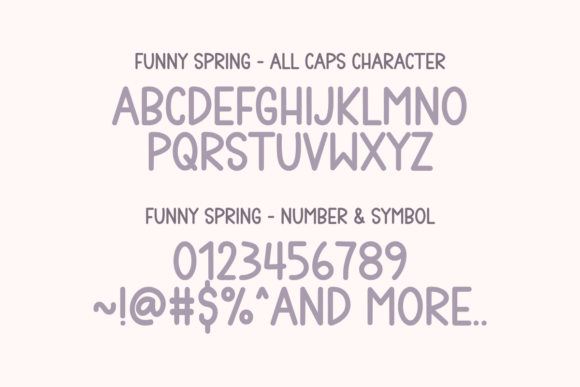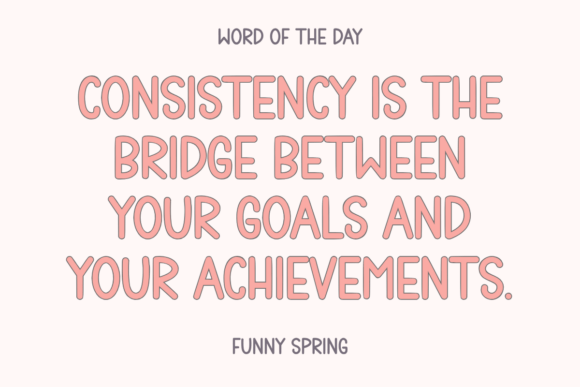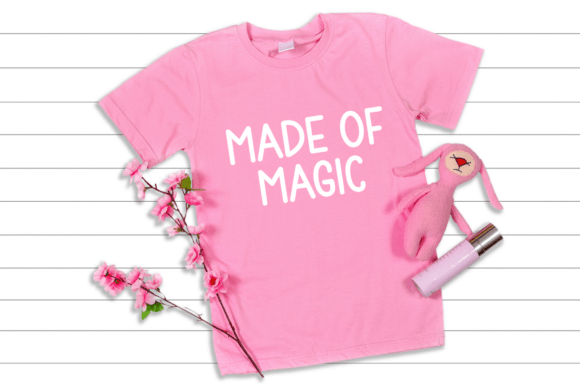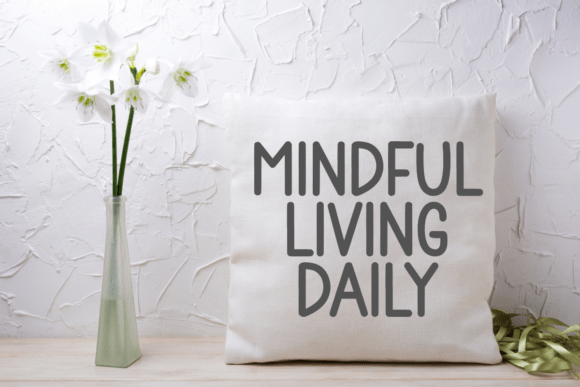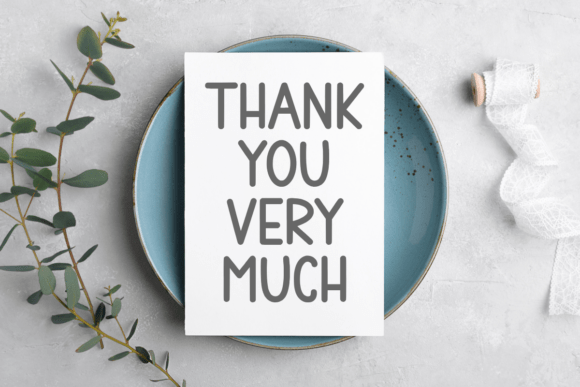
The Perfect Blend of Whimsy and Elegance: Funny Spring Font
Do you ever find yourself rummaging through your craft stash, searching for the perfect font to bring your next creative project to life? You’ve got your supplies, your imagination, and the blank canvas staring back at you, begging for inspiration. It’s moments like these that make you realize the power of the right font in elevating your art from ordinary to extraordinary.
Enter Funny Spring Font, a delicate, sans serif beauty that embodies the charm of natural handwriting. This elegant font is designed to add a touch of simplicity and sophistication to your crafts, from planners and journals to Cricut creations and stickers. Whether you’re a seasoned designer or just starting out, Funny Spring Font is the perfect tool to help you express your creativity and bring your vision to life.
Funny Spring Font Key Features
- Unique Characteristics: Funny Spring Font features a playful, hand-drawn design with irregular lines and organic shapes, adding a touch of whimsy to any text.
- Kerning and Ligatures: Funny Spring Font includes advanced kerning and ligature pairs, ensuring that text sets are visually appealing and professional-looking.
Funny Spring Font Review
Overall, I think the Funny Spring Font has a lot of potential, and I can see why it’s popular among designers. Here are some things that I think work well:
- ✨ Unique and quirky design: The font has a playful, whimsical feel that’s perfect for adding some humor or personality to a project.
- ✨ Wide range of characters: The font includes a lot of special characters and symbols, which makes it great for creating eye-catching headlines or titles.
- ✨ High-quality vectors: The font files are well-made and easy to work with, even at large sizes.
However, I do have some reservations:
- ⚠️ Limited legibility: At small sizes, the font can be difficult to read, especially for people with vision impairments. This might limit its use in body text or other situations where clarity is key.
- ⚠️ Some character inconsistencies: I noticed a few instances where the same character was rendered differently in different parts of the font. This can be jarring and might detract from the overall design.
Overall, I think the Funny Spring Font is a great choice for projects where a playful, attention-grabbing font is needed. However, it may not be the best fit for projects that require a more serious or legible font. With some careful use and consideration of its limitations, it can be a valuable addition to any designer’s toolkit.
To get the most out of the Funny Spring Font, consider the following tips:
- Use it sparingly to add a touch of whimsy to your design.
- Pair it with bold or italic fonts to create visual interest.
The Funny Spring Font is perfect for:
- Spring-themed designs, such as Easter or Mother’s Day cards.
- Children’s party invitations or decorations.
- Whimsical or playful designs for social media or advertising.